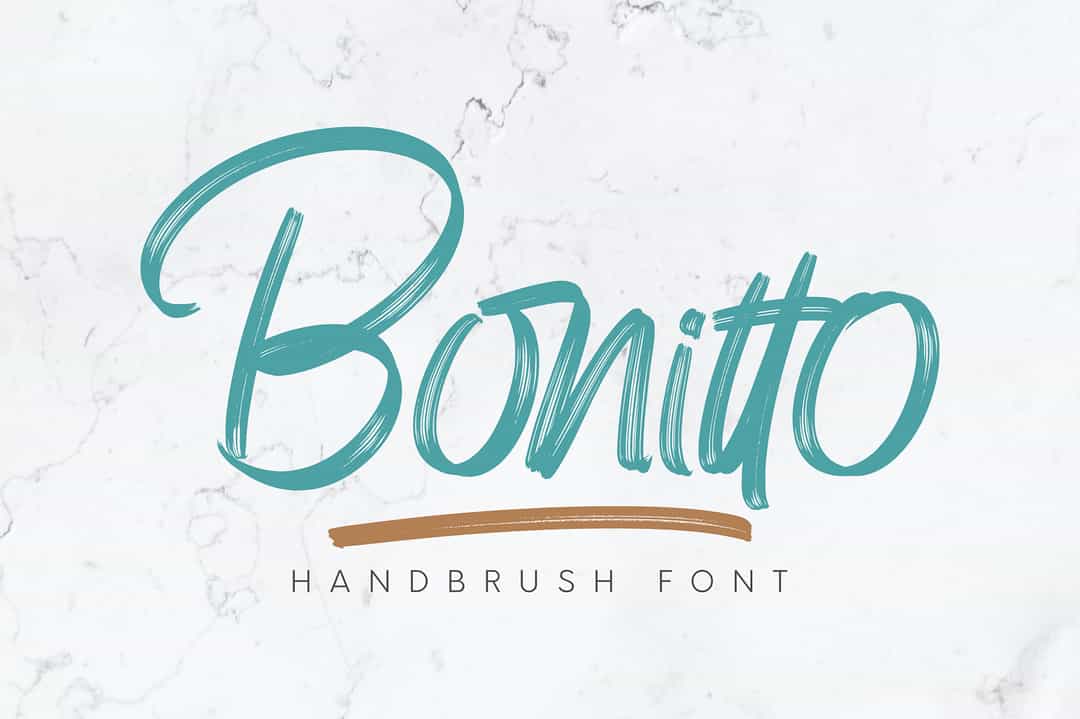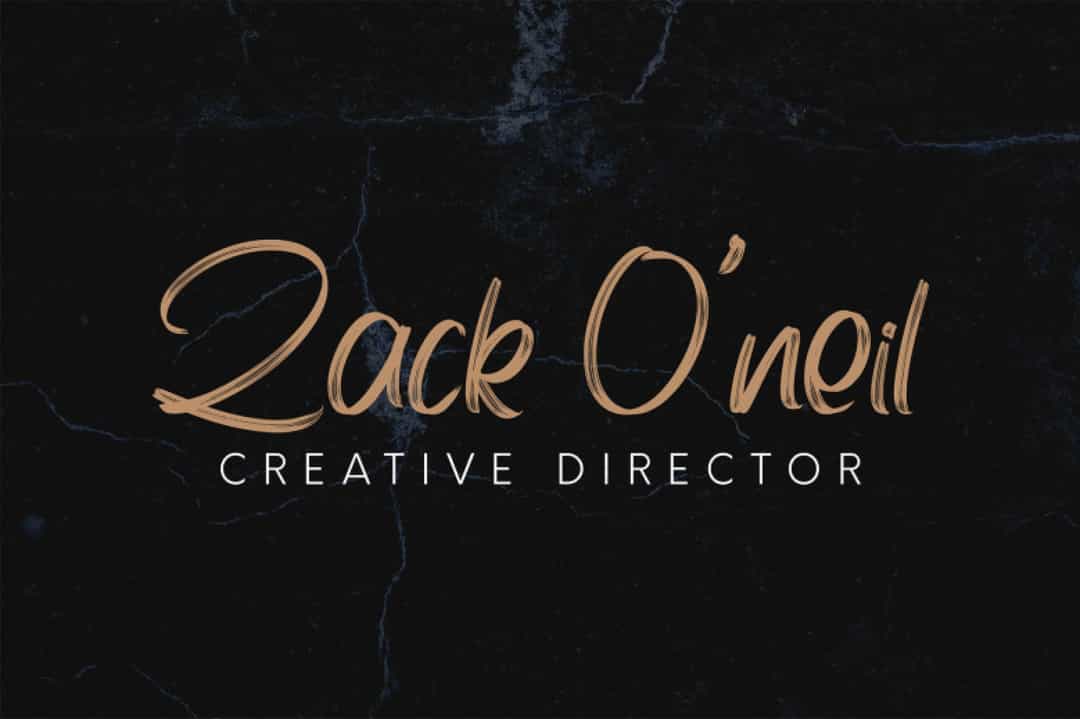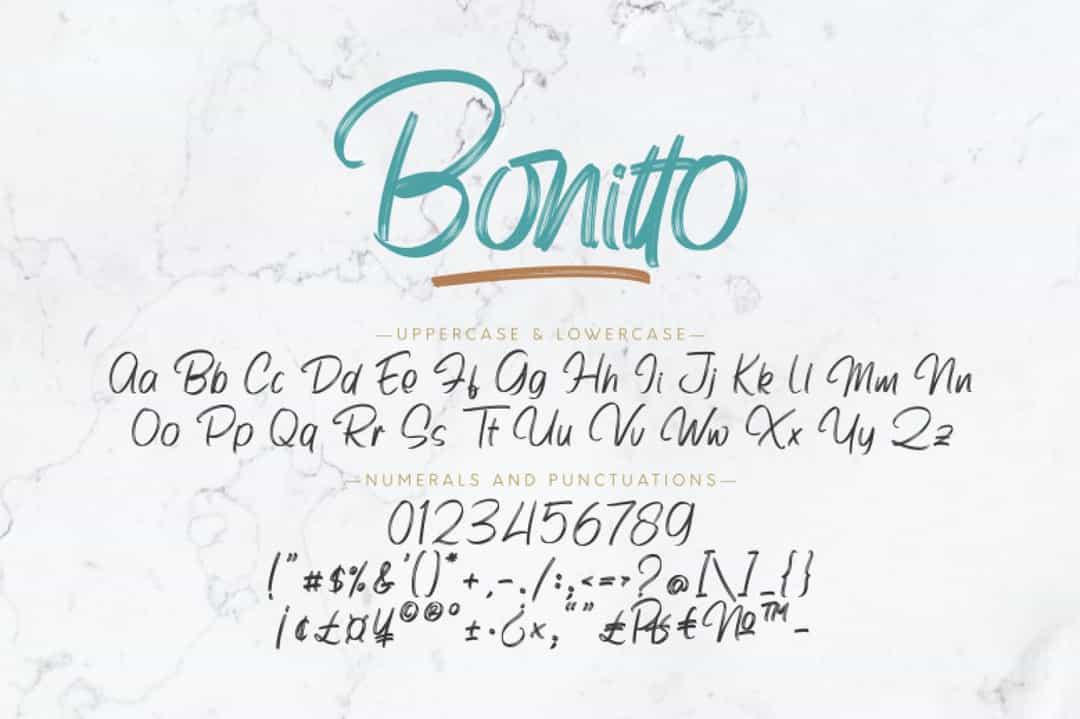
Discover Bonitto Font, part of the Brush Script collection—a versatile and unique font perfect for adding a personal touch to your projects. Download it for free and enjoy crafting designs with style, from invitations to social media posts. This font is available exclusively for personal use, giving you the freedom to create without limits. Unlock your creativity with Bonitto Font today!
Bonitto is a hand made brush font that has a free and lively feeling with an easy to read, strong and slightly condensed stroke with thin and thick curve marks. Bonitto font is suitable for logo, branding of products, wedding designs, ads, social media updates, packaging for products, designs and labels photography watermarks, invitations, stationery, invitations and all other projects that may require the writing ability of a professional.